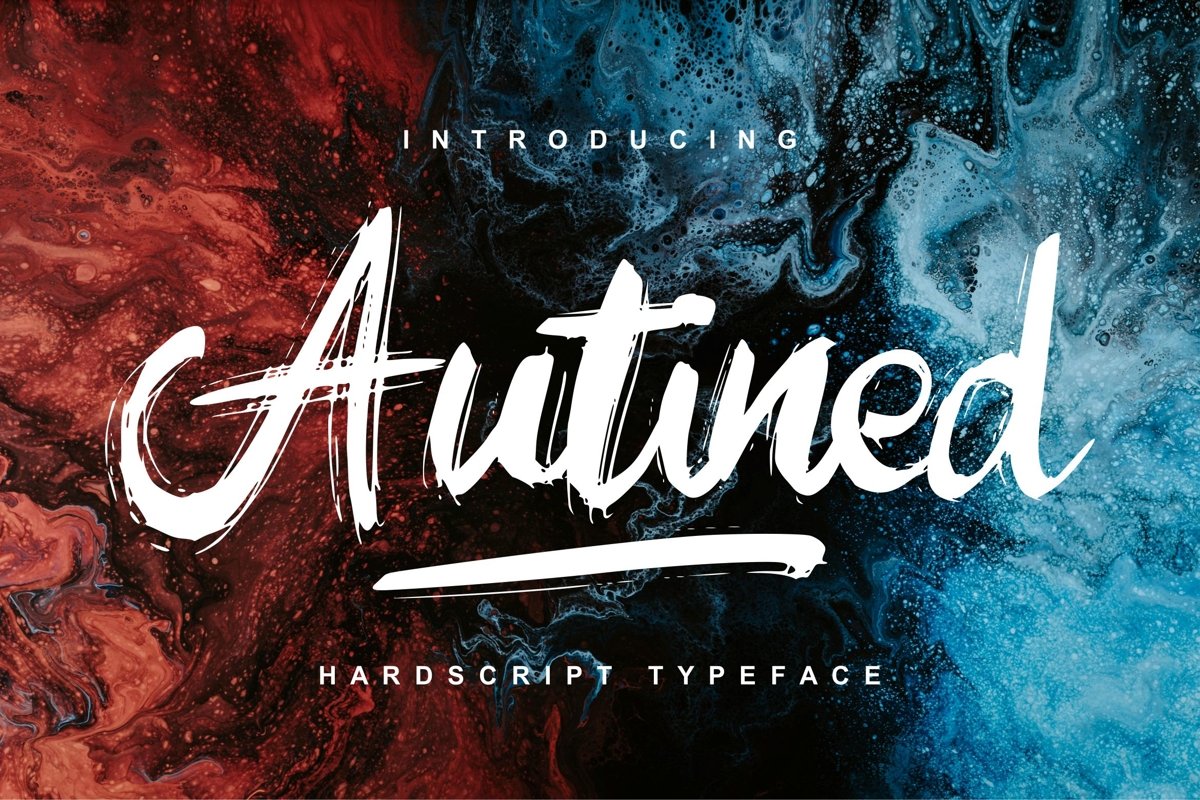
Autined | Hardscript Typeface Font
Autined
**Autined | Hardscript Typeface Font** with a calligraphy style, So beautiful on invitation like greeting cards, branding materials, business cards, quotes, posters, and more!
* Tons of glyphs
* Alternates and Ligatures
* Fonts include **Multilingual Support**